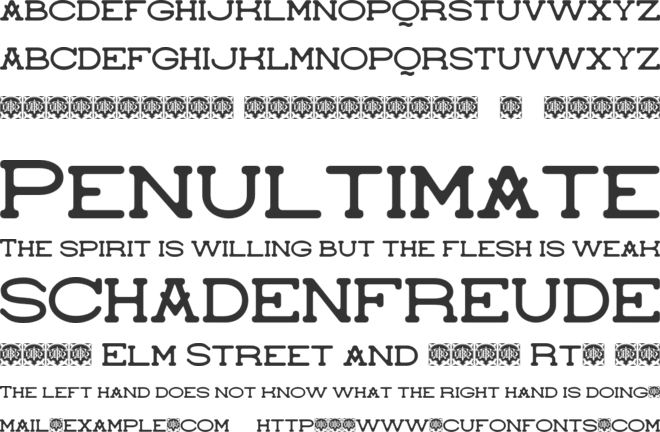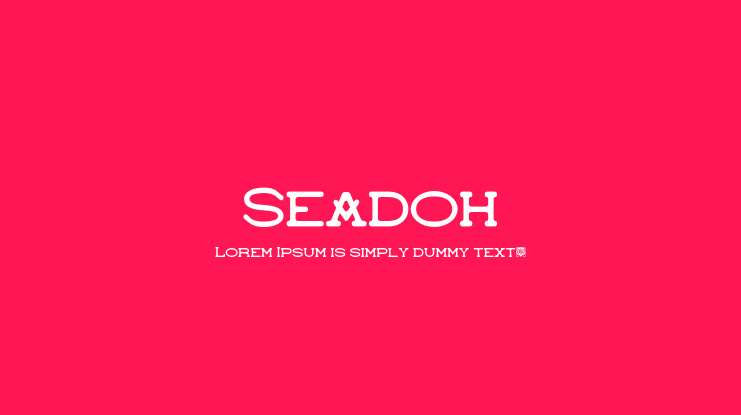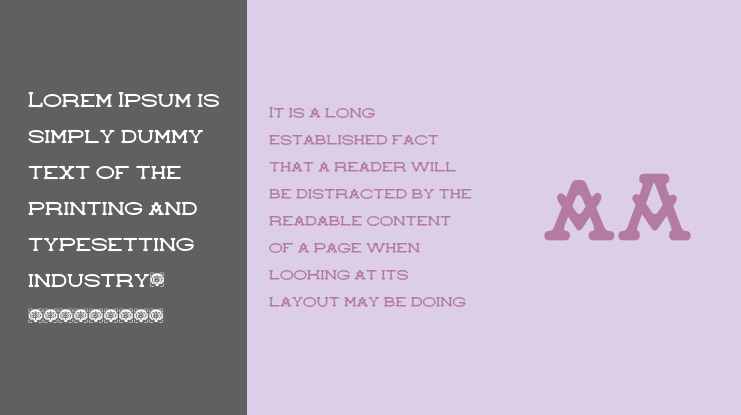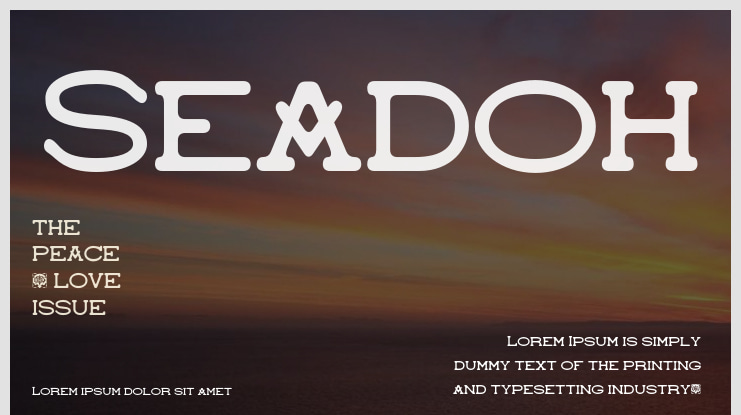
Seadoh Font Family
We proudly present Seadoh, a font inspired by maritime themes. Seadoh combines a modern appearance with a sense of adventure. Characterized by bold and chunky letters, it offers a vintage and retro feel. Available in two weights, light and regular, this font is ideal for any project that requires a touch of the sea, such as logos, posters, greeting cards, signage, headlines, titles, and much more.